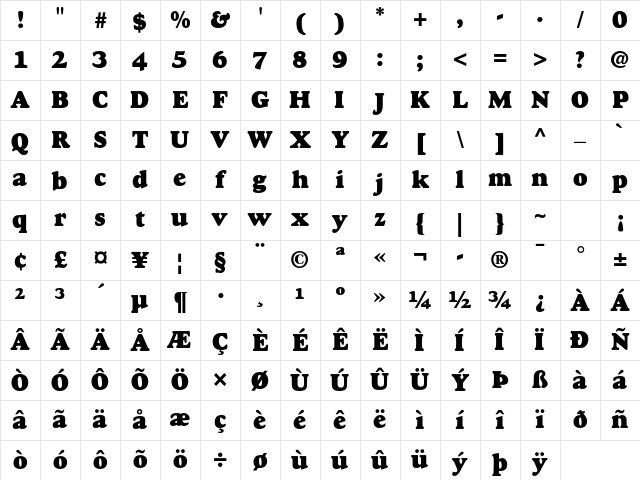
Goudy Heavyface Std Regular
Designer: Frederic W. Goudy, Morris Fuller Benton
Design Context for Goudy Heavyface Std
Goudy Heavyface Std is a composed and adaptable typeface that performs quietly and consistently across a wide range of design contexts.
Pro Tip: Use Goudy Heavyface Std in both headline and body roles to test its range before committing to a single application.